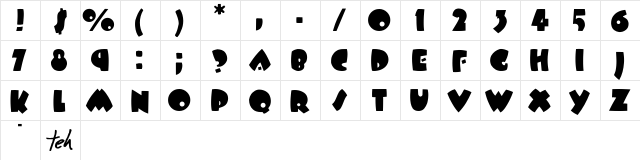
Beex Regular Font Preview
Beex Regular
Beex Regular Font Details
Design Context for Beex Typeface
Beex is a composed and adaptable typeface that performs quietly and consistently across a wide range of design contexts.